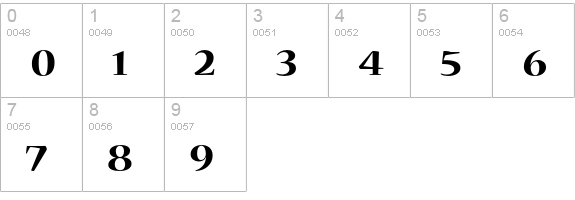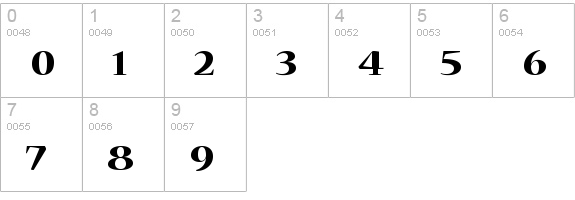
Nueva Bold Extended is a strong, high-contrast, extended-width variant in the Nueva typeface family \xE2\x80\x94 well suited to headlines, attention-grabbing titles, and strong calls-to-action.
Nueva Bold Extended font is a modern and sleek typeface that exudes confidence and sophistication. Its bold and extended design makes it perfect for creating eye-catching headlines and impactful designs. The clean lines and sharp angles of this font give it a contemporary edge, making it ideal for projects that require a strong visual presence. The Nueva Bold Extended font is not only stylish and versatile, but it is also available for free download at FontsMarket.com. This means that you can easily access this high-quality font without any cost, making it a valuable resource for both personal and commercial projects. Whether you're designing a poster, website, or branding materials, Nueva Bold Extended font is sure to make a bold statement and elevate your design to the next level.